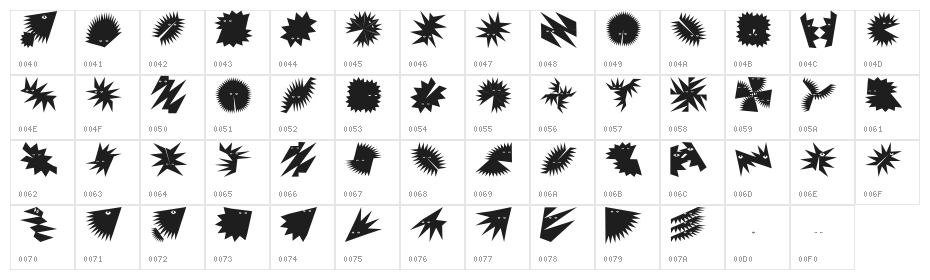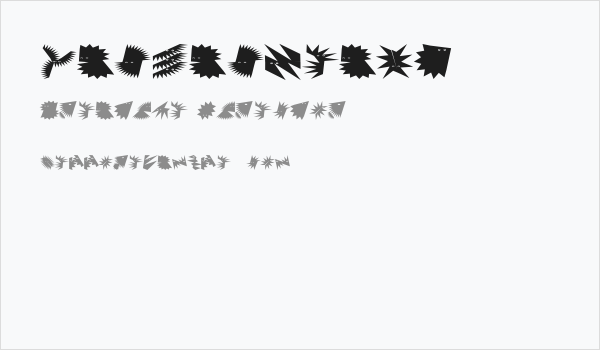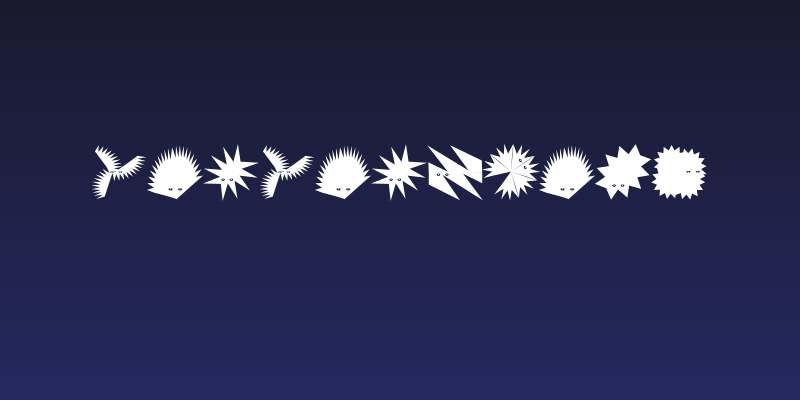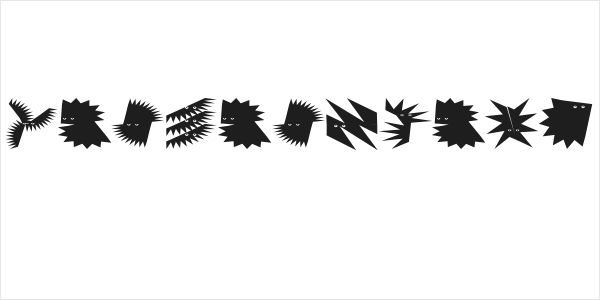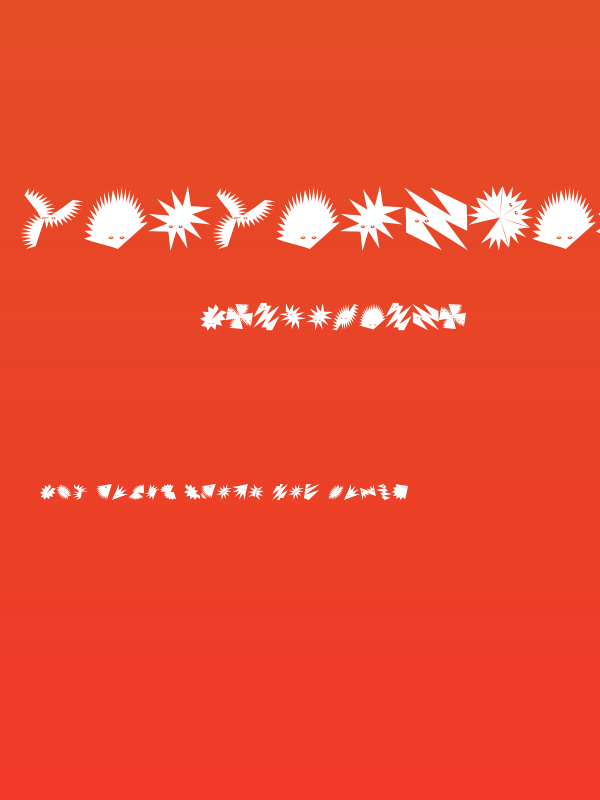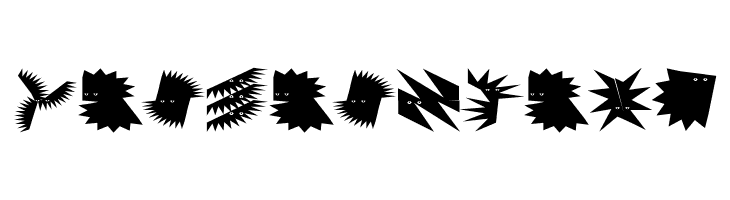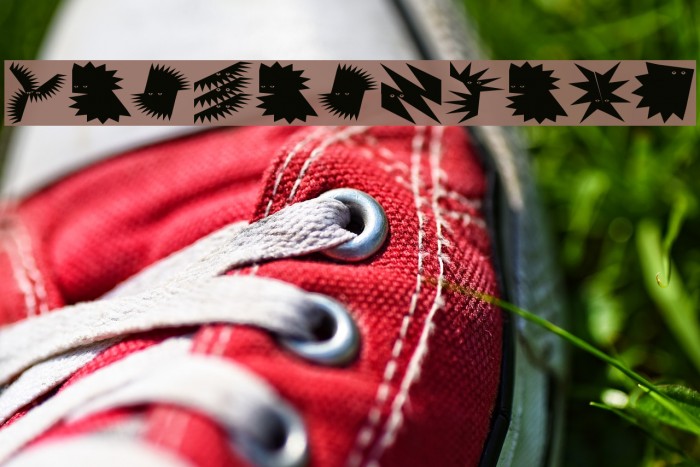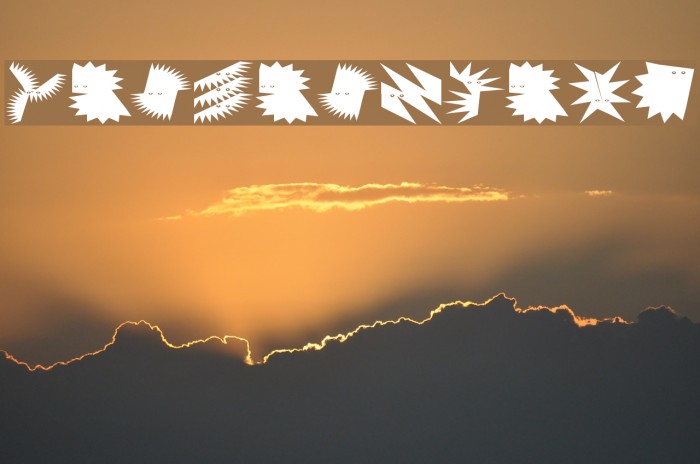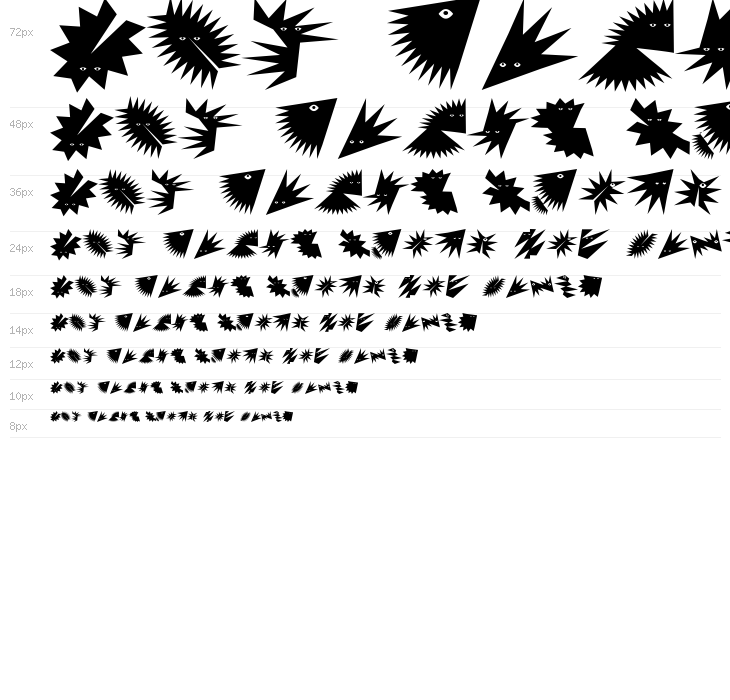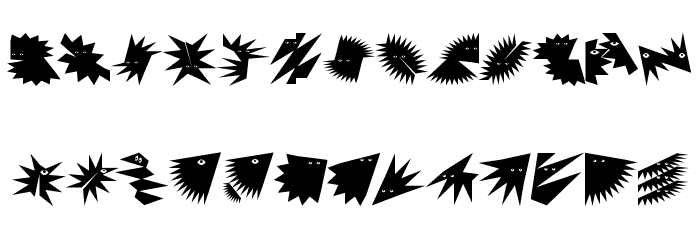
ZagzagHeads Font
ZagzagHeads Description
This font features a highly decorative and abstract design, characterized by sharp, jagged edges and a spiky appearance. Each character is uniquely crafted to resemble a burst or explosion, giving the font a dynamic and energetic feel. The bold, black shapes create a striking visual impact, making it ideal for attention-grabbing designs. The font's playful and chaotic style is reminiscent of comic book art or graffiti, making it suitable for creative and unconventional projects. Its distinctiveness ensures that it stands out in any context, though it may not be suitable for body text due to its complexity.
| Proposed Projects | Ideal for posters, album covers, comic book titles, and creative branding projects. |